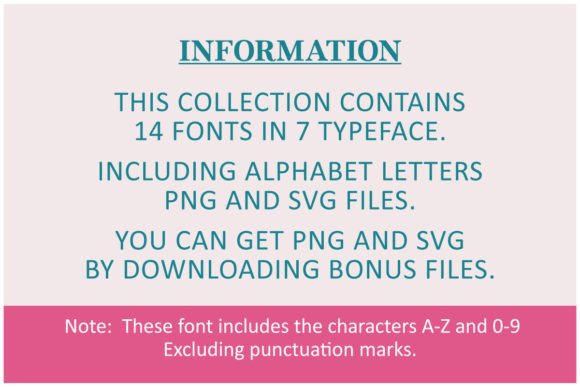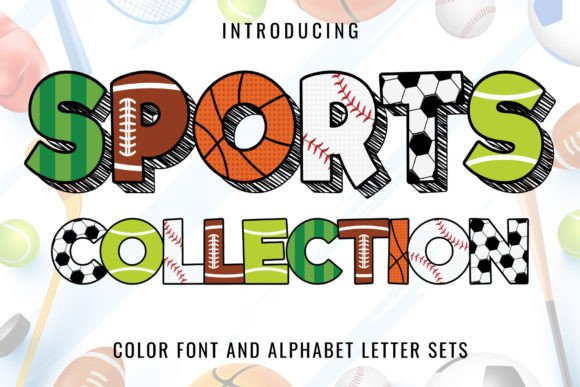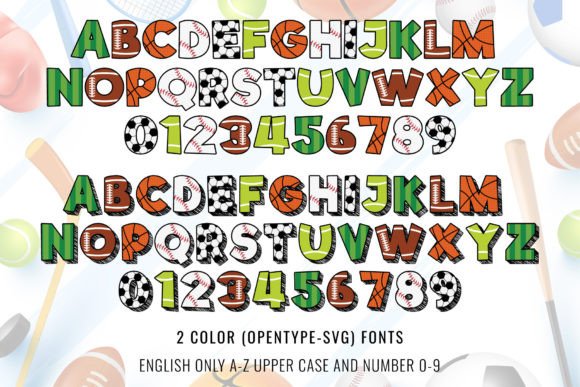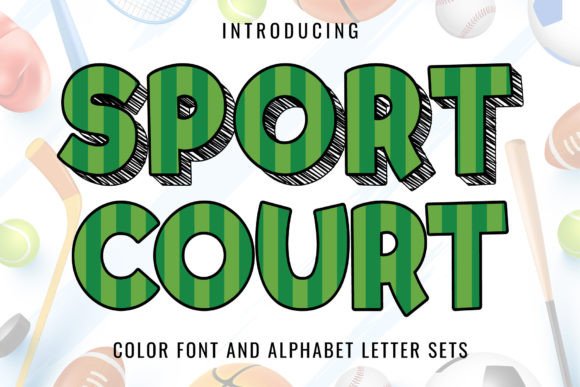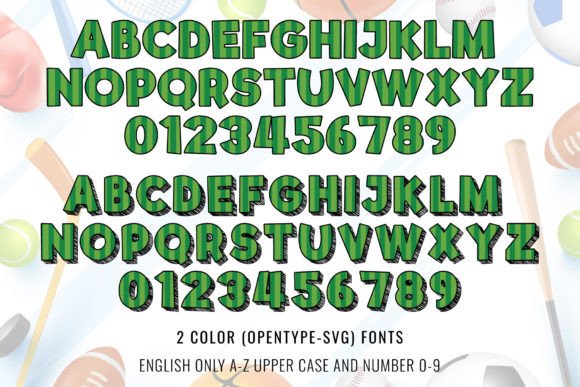
The Sports Collection Font
The Sports Collection Font contains 14 fonts from 7 typefaces and is a fun and playful color font. It’s the perfect font for sports-themed projects.